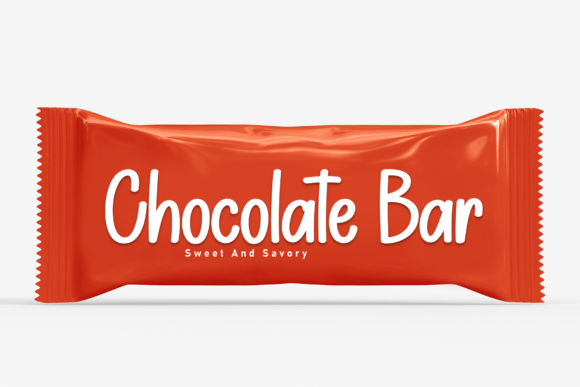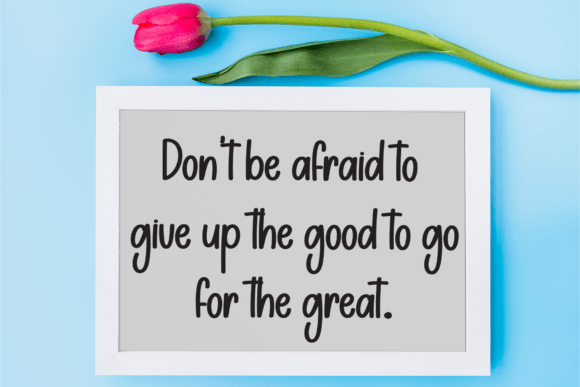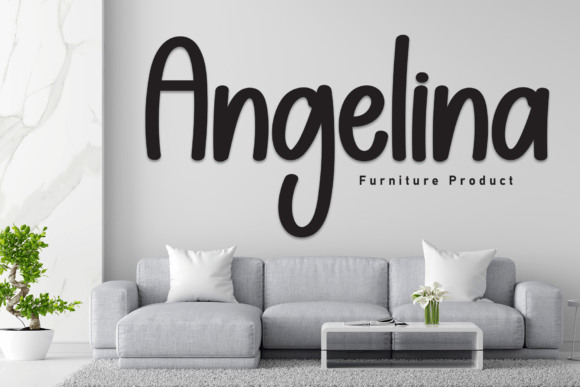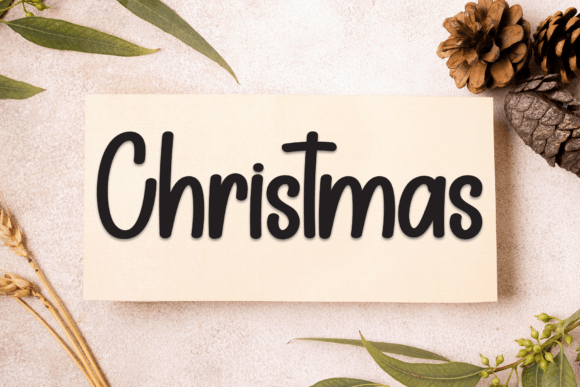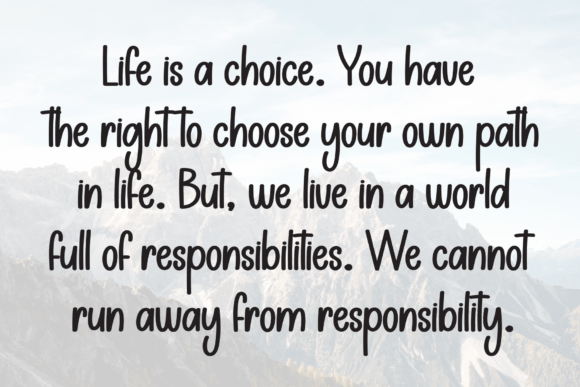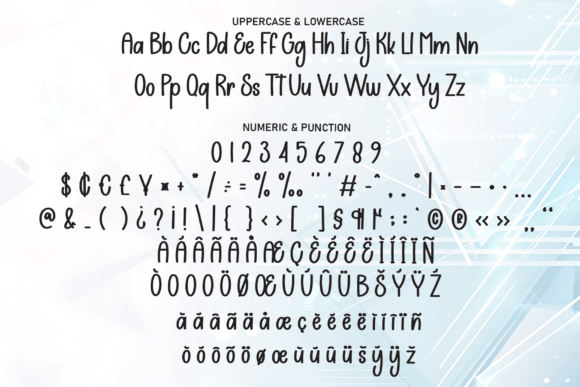
Introduction to Modern Digital Font
Remember that moment when you’re brainstorming ideas for a creative project, and the perfect font just pops into your mind? That’s exactly what happened to me when I stumbled upon the Modern Digital Font. Its unique, bold handwriting style instantly caught my attention, and I knew I had to dive deeper into its world.
As a designer, I’m always on the lookout for high-quality fonts that can elevate my designs and give them that extra oomph. And let me tell you, the Modern Digital Font definitely delivers. Its fresh and contemporary feel makes it perfect for adding a personal touch to any project, from logos to social media graphics, and even website designs with transparent backgrounds.
Key Features of Modern Digital Font
- High-quality vector graphics with transparent background, ideal for creative projects
- Unique and modern design aesthetic, perfect for contemporary branding and creative projects
- Designed with a focus on legibility and readability, ensuring clear and crisp text output
Honest Review: Modern Digital Font
I recently stumbled upon the Modern Digital Font and I must say, it’s been a game-changer for my design projects. The font is perfect for anyone looking for a modern and sleek look. With a transparent background, it can easily be placed on any design resource without any issues.
However, I did encounter a few limitations. The font is only available in a limited range of weights, which can make it difficult to use in certain design scenarios. Additionally, the font may not be suitable for printing, as it’s primarily designed for digital use.
Overall, I’m really impressed with the Modern Digital Font. It’s a great addition to any design library and can add a touch of modernity to any creative project. Just be aware of its limitations and use it accordingly.
Modern Digital Font is perfect for a variety of creative projects, including logos, infographics, and presentations. Its high quality and transparent background make it ideal for use in digital design.